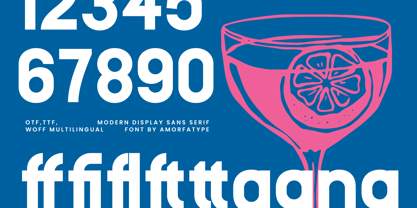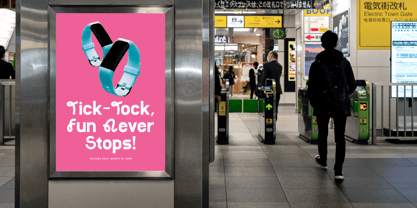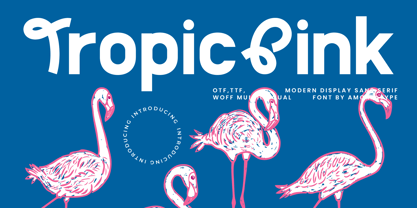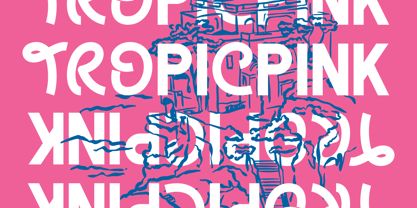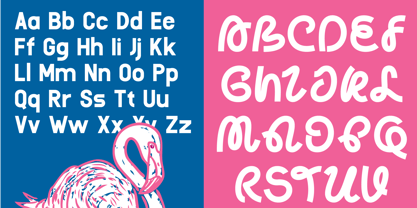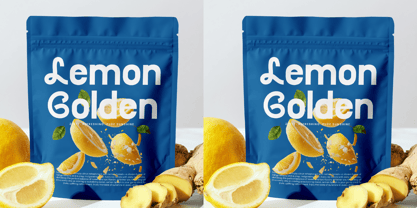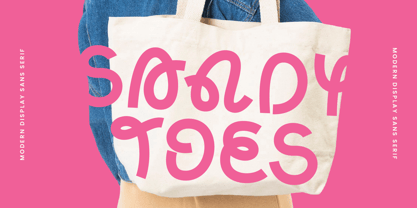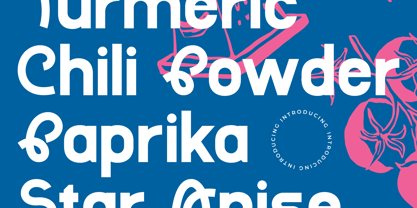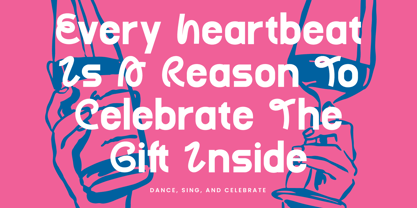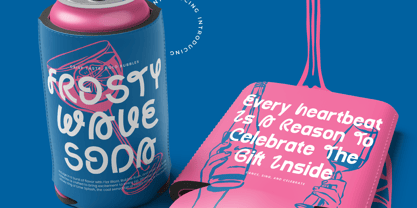
Tropic Pink
by Amorfa Type
The Tropic Pink Font Family was designed by Shiddiq Roihan and published by Amorfa Type. Tropic Pink contains 2 styles and family package options. More about this family
Tropic Pink Modern Display Sans Serif Font by Amorfatype
Tropic Pink is a modern display sans serif font that effortlessly blends bold aesthetics with contemporary elegance. Its clean, structured letterforms and smooth curves create a striking yet approachable appearance, making it a versatile choice for a wide range of design applications. The balance between geometric precision and refined styling ensures that Tropic Pink stands out while maintaining excellent readability.
Perfect for branding, editorial layouts, digital designs, and eye-catching headlines, Tropic Pink offers a fresh and modern look for creative projects. Whether used in large-scale typography or smaller, intricate details, this font delivers a sleek and polished presence. Each character is meticulously designed to adapt seamlessly across various design needs, making Tropic Pink a stylish and reliable addition to any font collection.